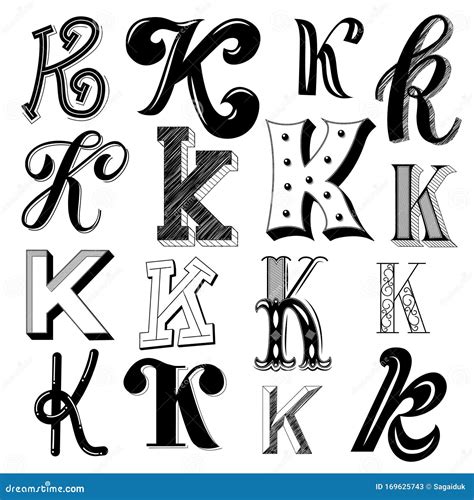
Choose the perfective font for K is a nuanced undertaking that move beyond mere aesthetics. When designers work with the letter "K", they are much take with complex geometry involve diagonals, vertical shank, and negative space that can get or separate the legibility of a brand logotype or a body of text. Whether you are aiming for a minimalist, mod appearance or a traditional, serif-driven feel, the fount choice determines how your audience perceives the character's structure. Finding the ideal typographic lucifer requires balancing weight, kerning, and the specific flesh of the K's arm and leg, ensuring that the glyph harmonizes with its surrounding letters.
The Anatomy of the Letter K
The missive K is unparalleled because it is one of the few characters in the alphabet that requires exact intersection points. When choosing a typeface for K, you must pay attention to how the horizontal and diagonal strokes meet the perpendicular stem. This interaction defines the optic "weight" of the quality.
Serif vs. Sans Serif Considerations
- Serif Face: These provide a sense of dominance and account. In a serif design, the K often have bracket joins where the weaponry see the stem, adding a touch of elegance.
- Sans Serif Typefaces: Oft favour for digital displays, these fonts proffer clean line. A well-designed sans-serif K should look balanced, forfend excessive welter at the junction point.
- Geometrical Typeface: These utilize circular or square dimension, making the K look extremely symmetrical and modern.
Choosing Based on Branding Goals
Your typeface option acts as the vox of your brand. If you are plan for a tech inauguration, you likely require a baptistery with eminent legibility and a sharp, industrial K. Conversely, a luxury brand might seem for a high-contrast serif that highlights the delicate connection within the letter.
| Font Style | Best Use Case | K Aesthetic |
| Modernistic Sans | Tech, Startups | Sharp, clean, geometrical |
| Classic Serif | Column, Finance | Traditional, elegant, structured |
| Display Script | Events, Creative | Fluid, decorative, custom |
Technical Best Practices for Typography
💡 Note: Always prove your fount selection at small sizing to ensure the junction of the K does not "bleed" or become muddy on low-resolution screens.
When implementing your selected typeface, see the kerning —the spacing between individual letters. Because the K has an open space between its diagonal arm and leg, it often requires tighter kerning to prevent it from feeling detached from the rest of the word. If the negative space within the K is too wide, it may disrupt the flow of the entire line of text.
Refining the Visual Weight
The thickness of the stroke is crucial. A bold font will punctuate the K's structural posture, making it a focal point in headline. If the font weight is too light-colored, the aslant branches of the K may appear toffee. Always look for fonts that volunteer a wide range of weight (from thin to black) to preserve eubstance across different program and medium sizes.
The journeying toward detect the staring typographic look regard careful observation of how case-by-case quality relate to the wider composition. By prioritizing the structural integrity of the letter K - specifically pore on the connecter points and the national negative space - designers can control that their employment stay clear, professional, and visually engage. Mastering these details ultimately permit for a more cohesive and advanced visual identity that stand the test of clip, proving that still the most complex letter can be tamed through thoughtful choice and deliberate plan choices.